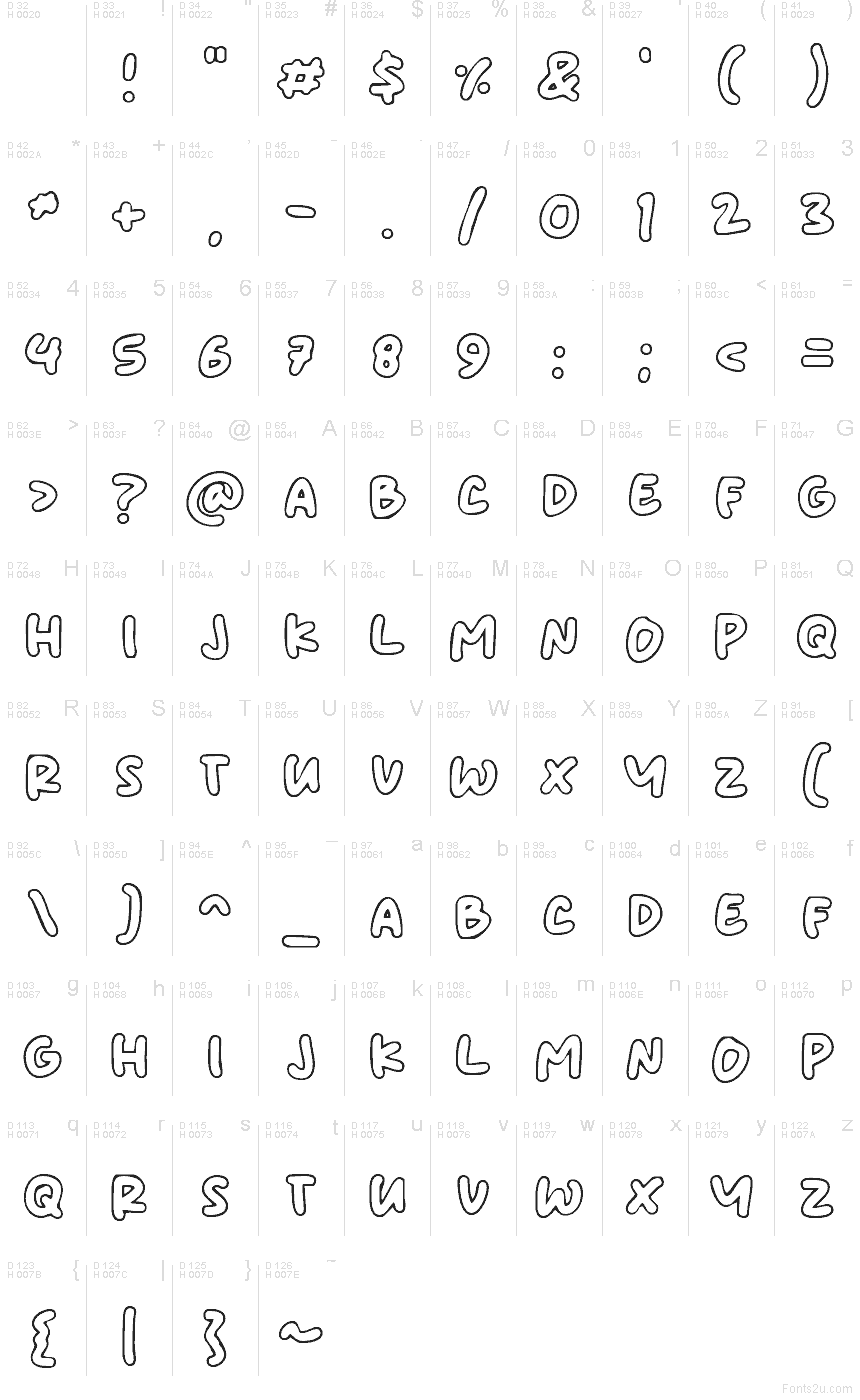
Outlinerz, by Origin Type, is a free outlined cartoon display font with inflated, hand-drawn caps and a loose comic pulse. The rounded letters swell and pinch unpredictably, while open interiors and wandering contours keep the design playful rather than rigid.
It fits children's posters, comic mastheads, snack packaging, sticker sheets, and playful event graphics, especially where a few large words can carry the composition. Use this free font for short headlines or title cards; its broad bubble shapes and irregular rhythm give brief messages the energy of marker-drawn lettering.